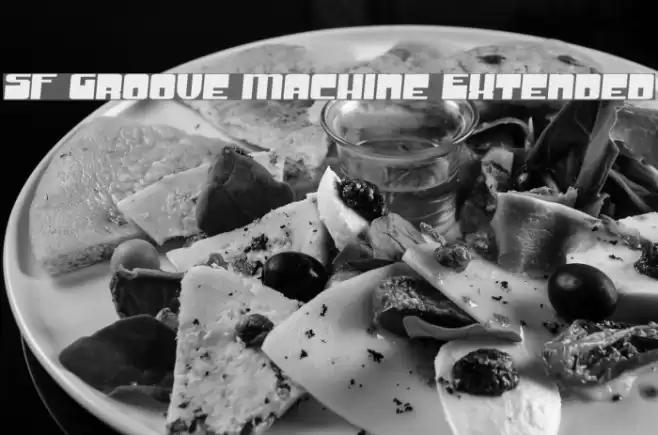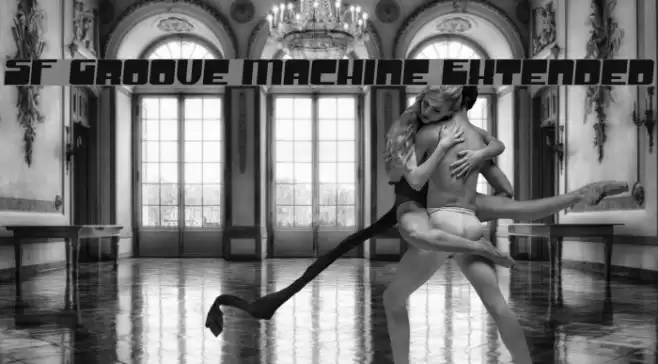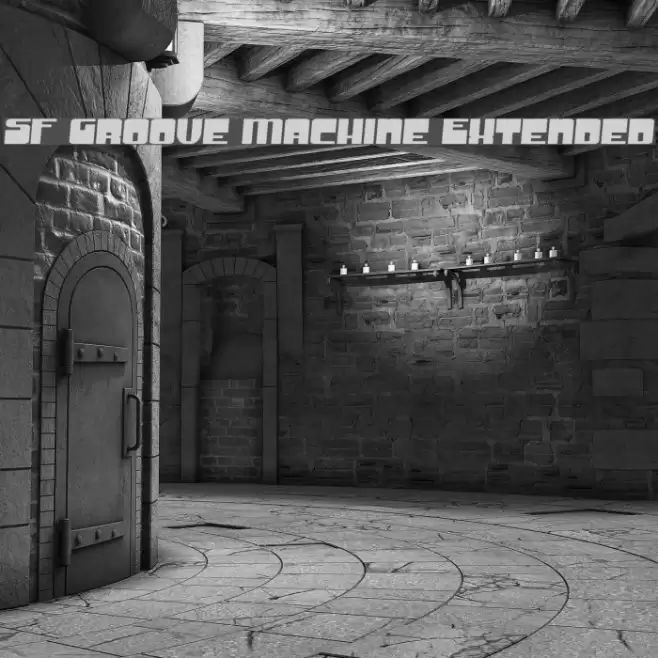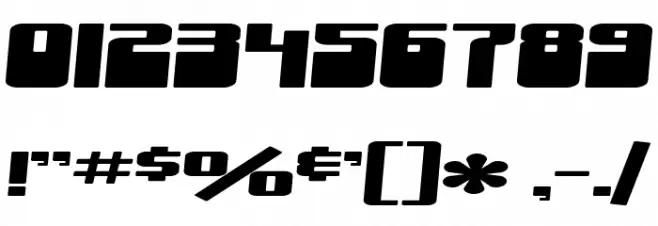
SF Groove Machine Extended Font
SF Groove Machine Extended Description
This font features a bold and dynamic style with a distinctly futuristic and industrial feel. The characters are wide and blocky, with rounded edges that soften the overall appearance. The uppercase and lowercase letters maintain a consistent height, contributing to a uniform look. The numbers and special characters follow the same design principles, ensuring cohesion across all glyphs. The font's extended width and heavy weight make it stand out, ideal for projects that require a strong visual impact. The spacing between characters is tight, enhancing its compact and robust appearance.
A bold, futuristic font with wide, blocky characters and rounded edges from Retro fonts.
- Proposed Projects: Ideal for sci-fi themed designs, video game titles, posters, and branding that requires a modern and impactful look.
- Width: Expanded
- Character Spacing: Tight
- Overall Style: Futuristic